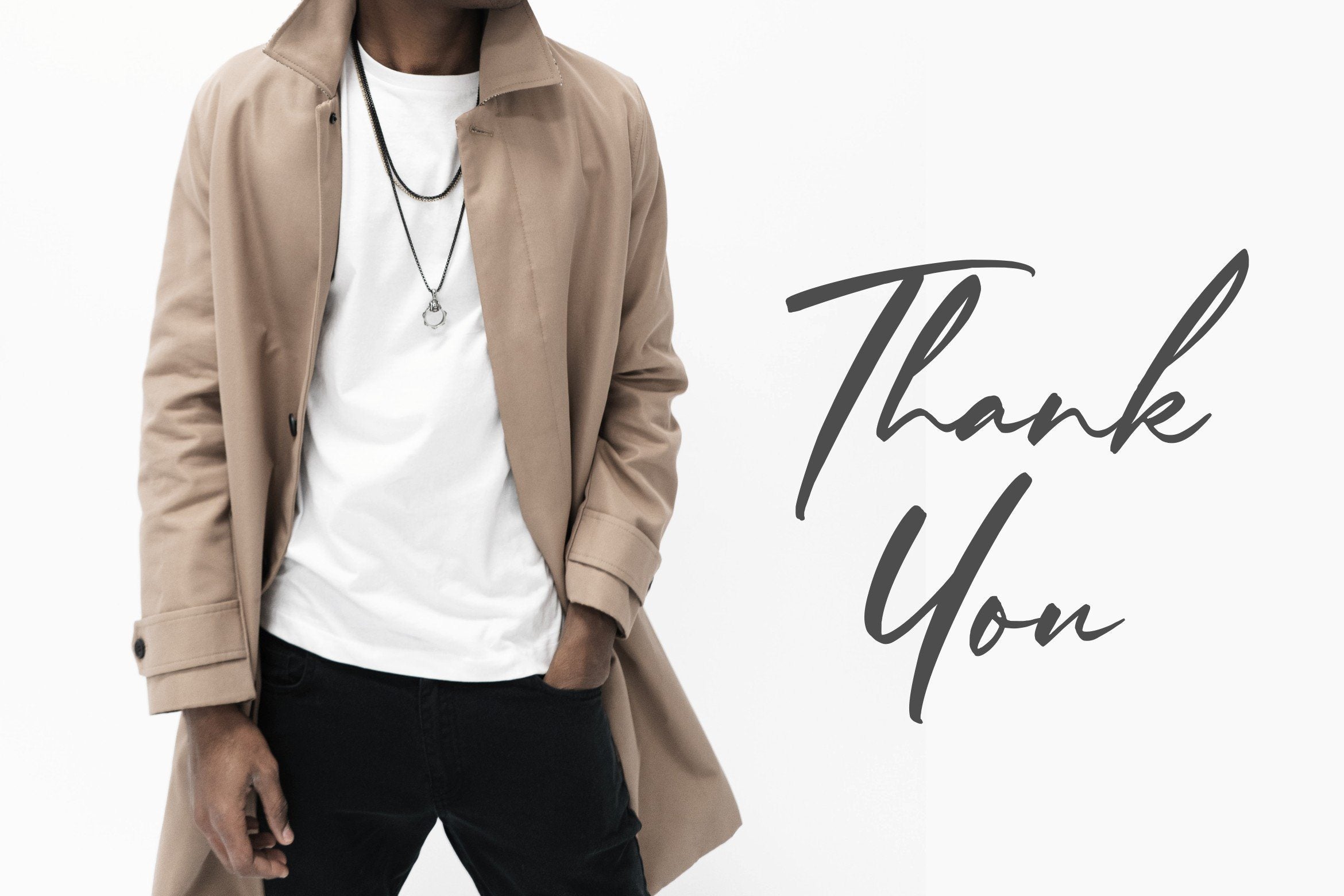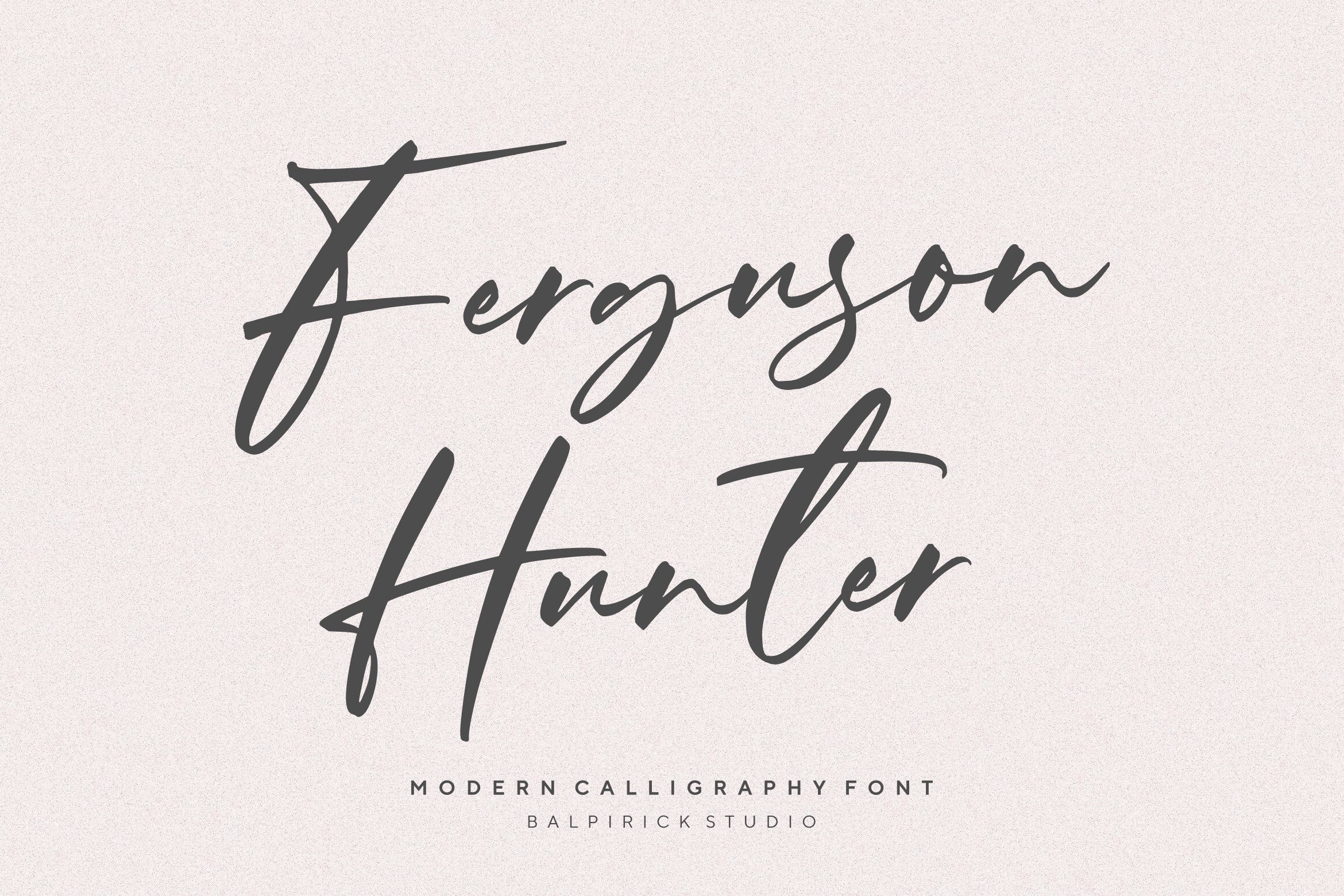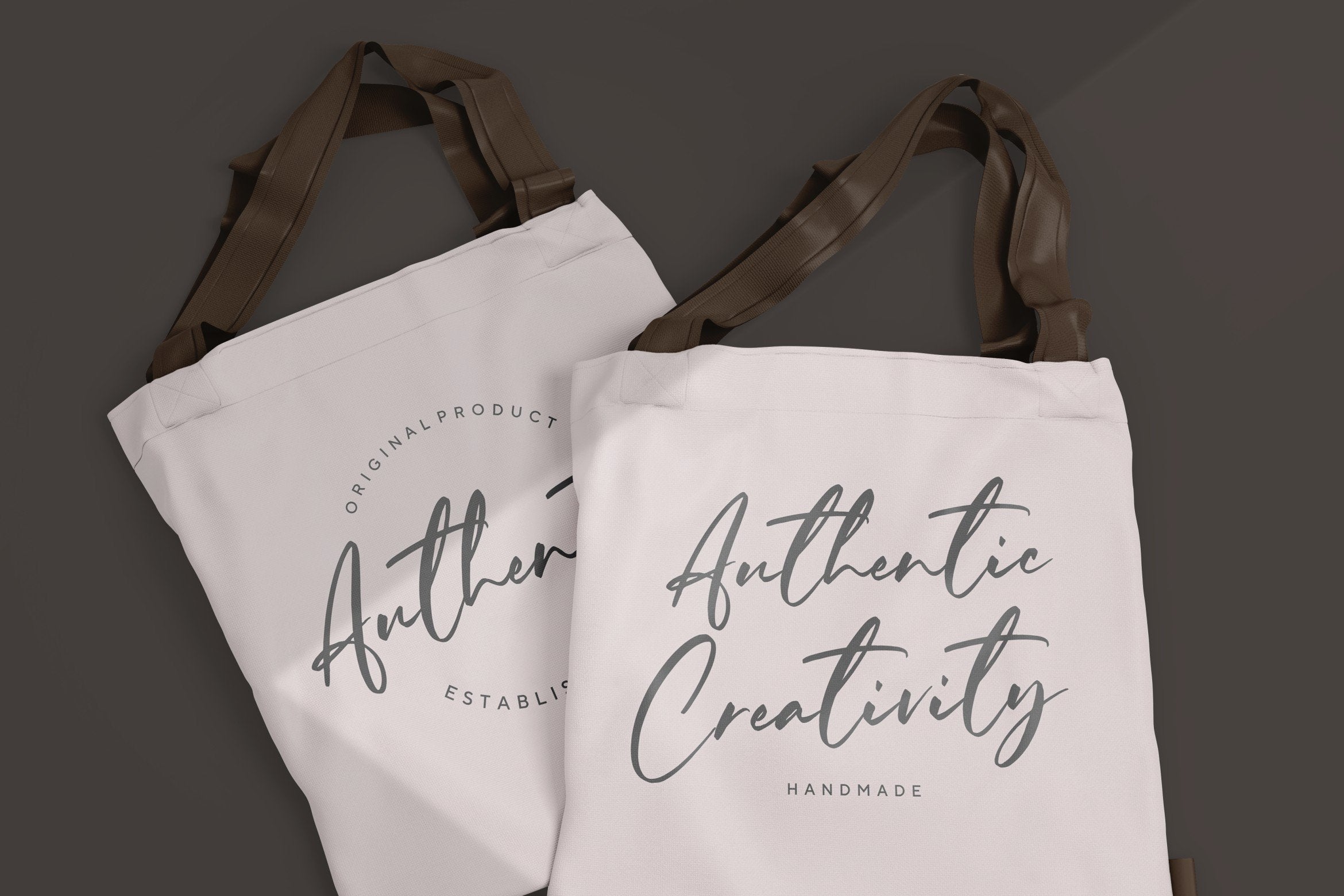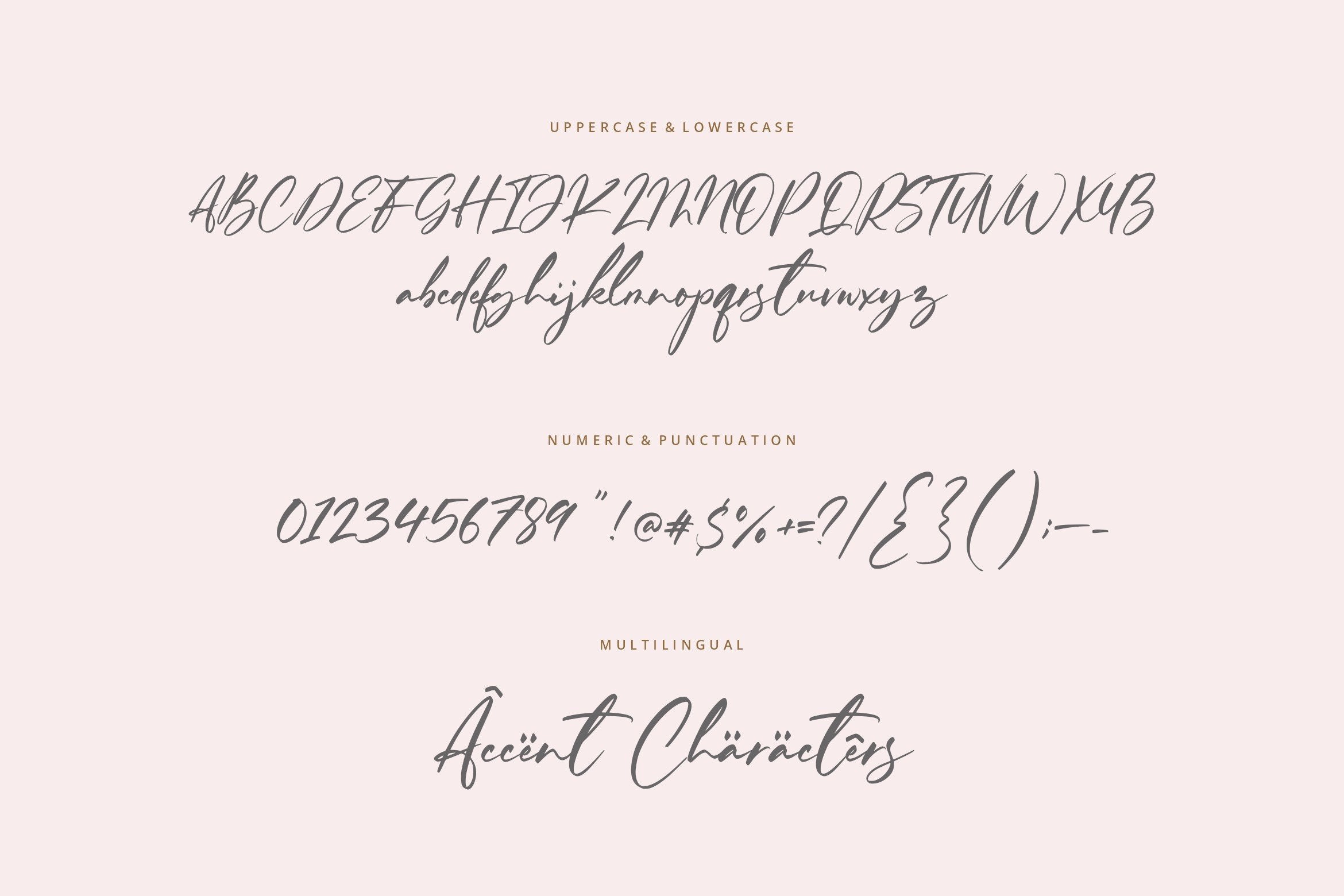
About Ferguson Hunter Modern Calligraphy Font
Introducing by Balpirick Studio. Proudly Present, Ferguson Hunter Font. Ferguson Hunter is a Modern Calligraphy Font. Ferguson Hunter is a lovely script font featuring charming, playful characters that seem to dance along the baseline. Whatever the topic, this font will be a wonderful asset to your font library, as it has the potential to enhance any creation. This font includes TTF, OTF and WOFF, Ferguson Hunter also multilingual support. Enjoy the font, feel free to comment or feedback, send me PM or email. Thank you!